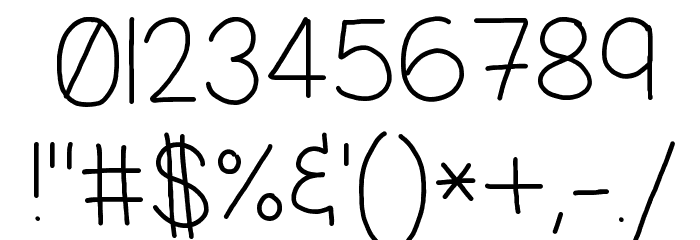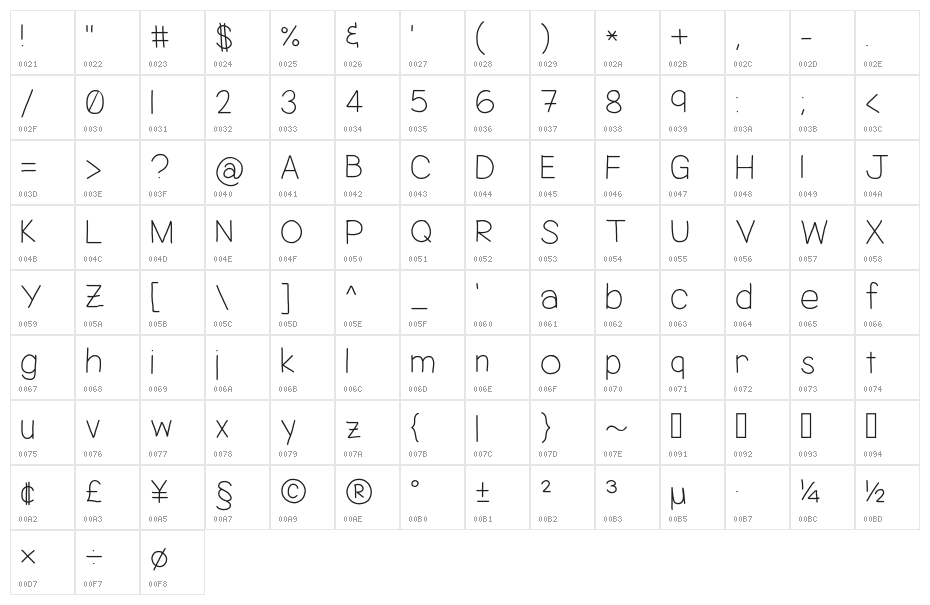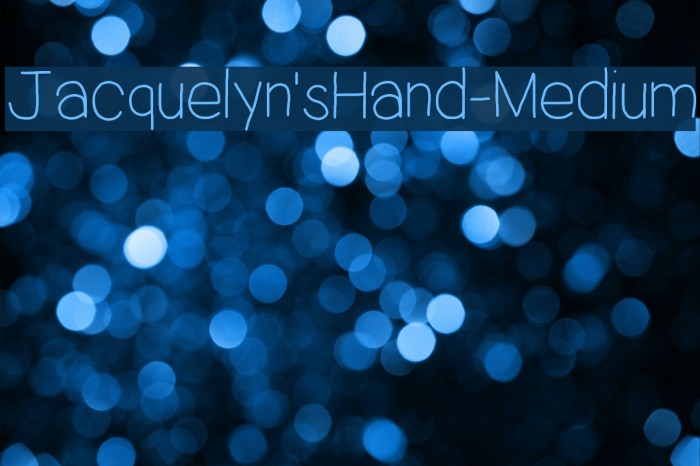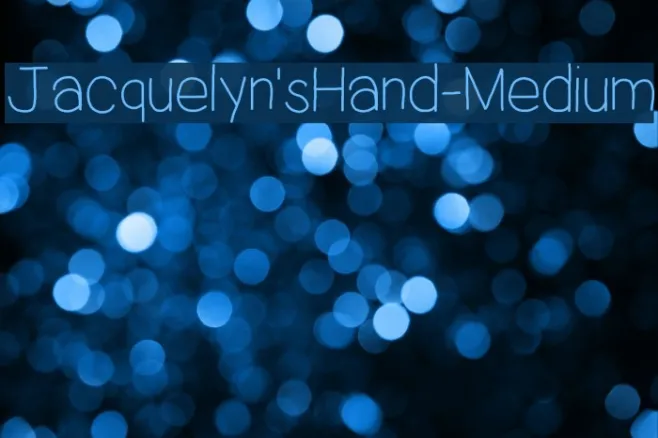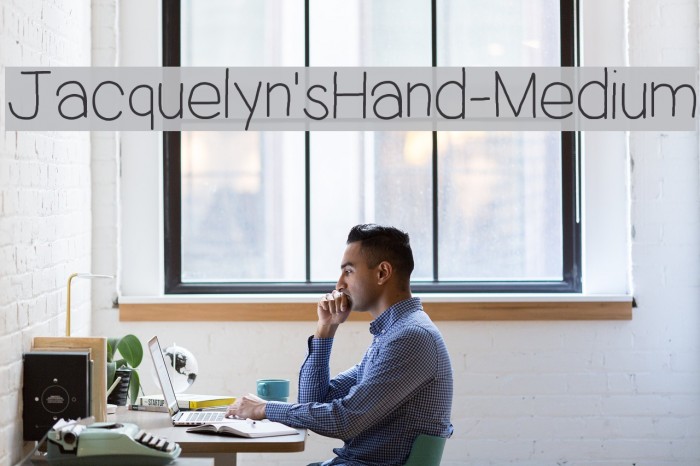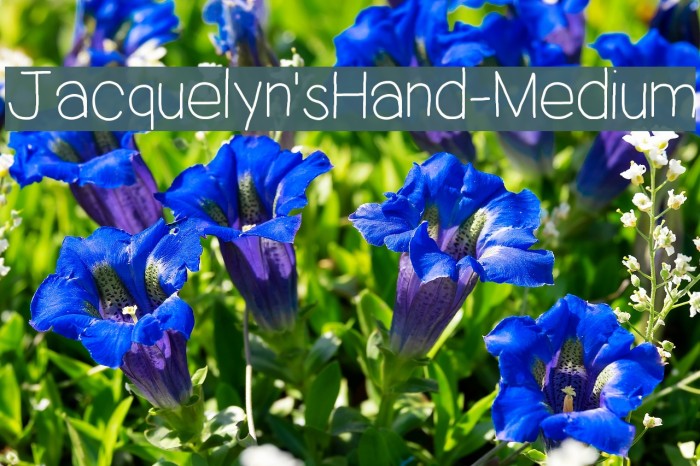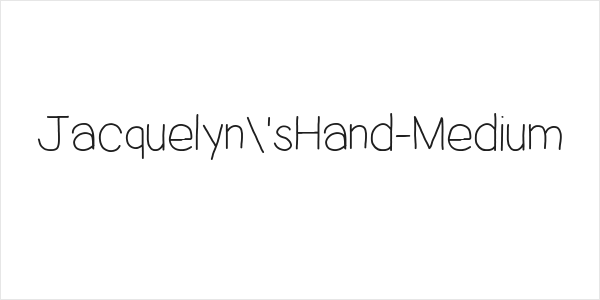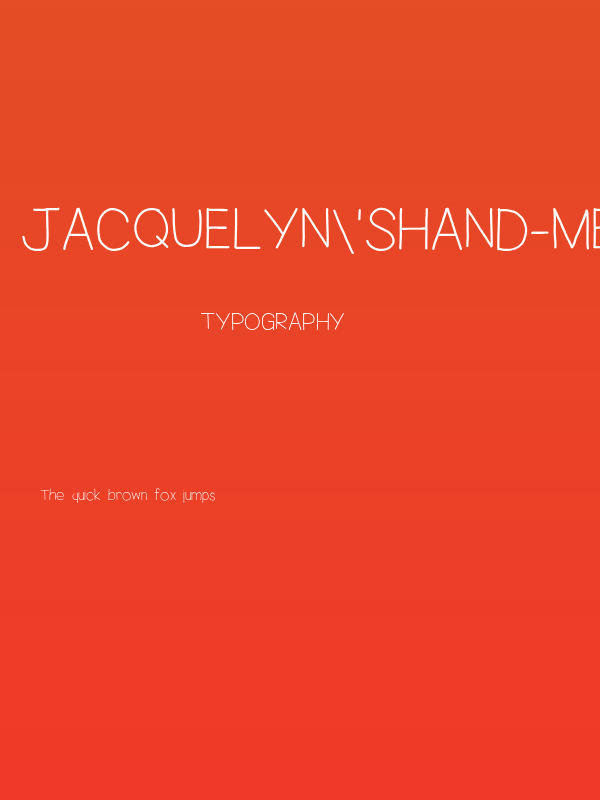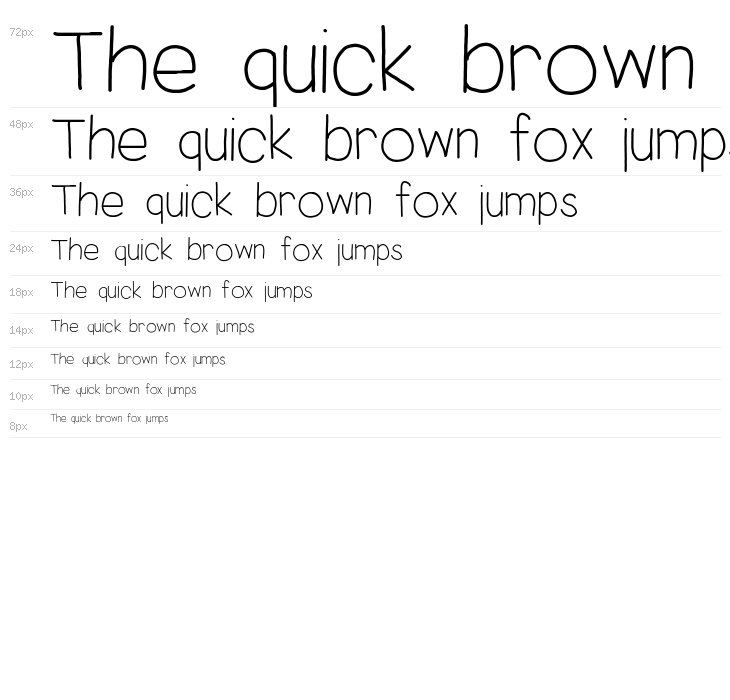
Jacquelyn'sHand-Medium Font
Jacquelyn'sHand-Medium Description
This font features a playful, handwritten style that mimics the natural flow of casual penmanship. The characters are slightly irregular, adding a personal and approachable feel. The uppercase and lowercase letters maintain a consistent height, contributing to a uniform appearance despite the handwritten aesthetic. The numerals and special characters are crafted with the same informal touch, ensuring a cohesive look across all text elements. This font is ideal for projects that require a friendly and informal tone, such as personal invitations, greeting cards, or creative branding materials.